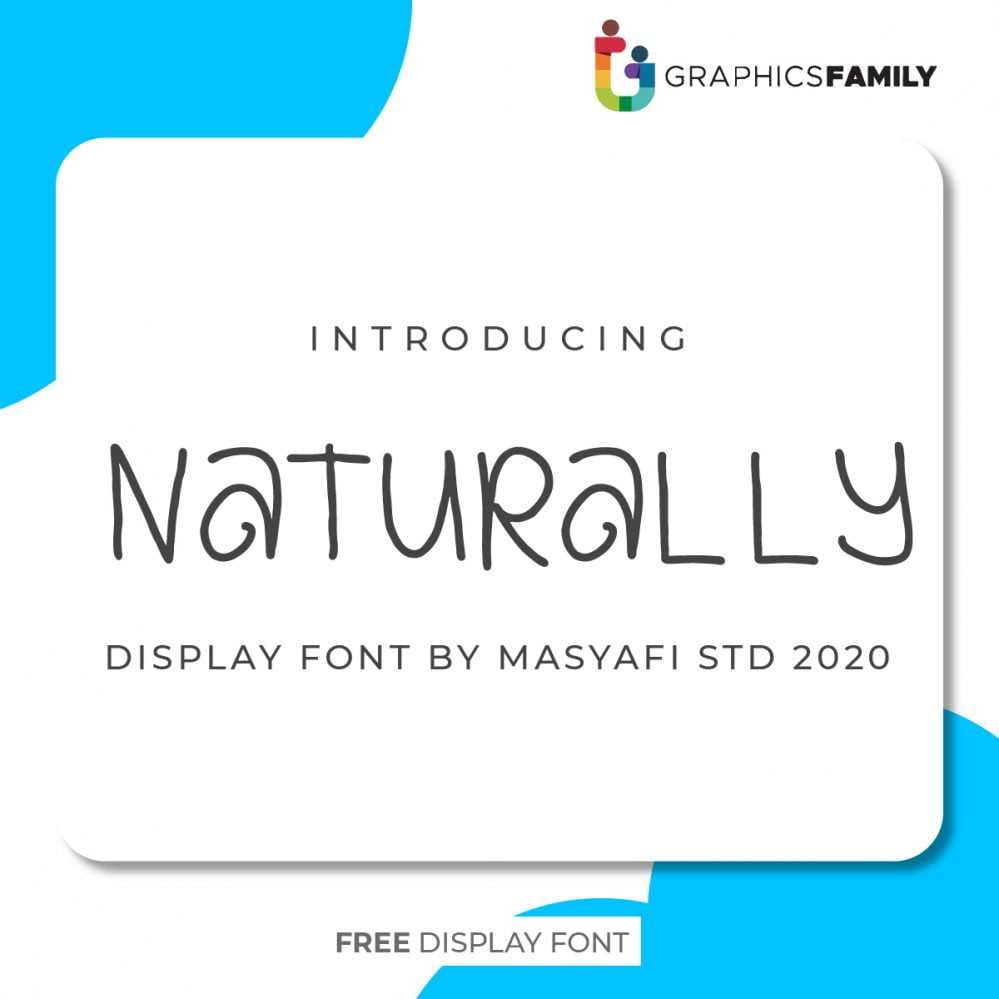
Naturally Font
✒️ Naturally Font It’s perfect for adding a quirky but casual feel, it will look stunning on posters, thank you cards, quotes, greeting cards, logos, business cards and every other design which needs a creative touch.